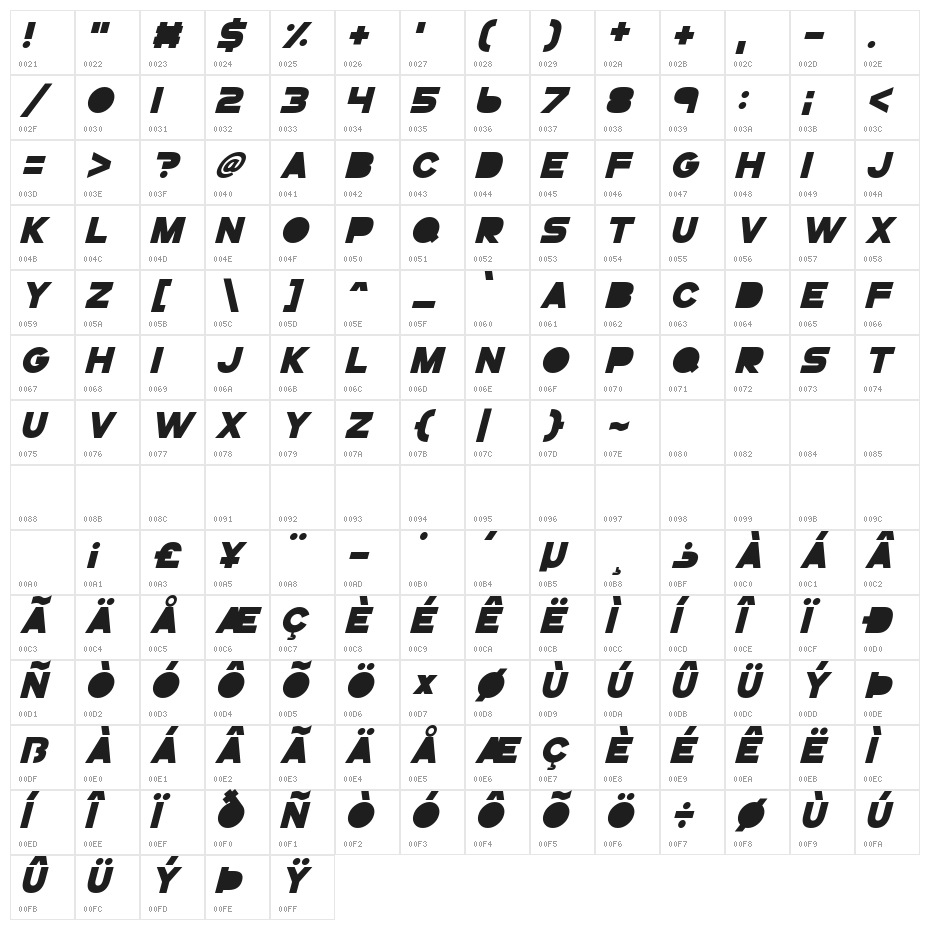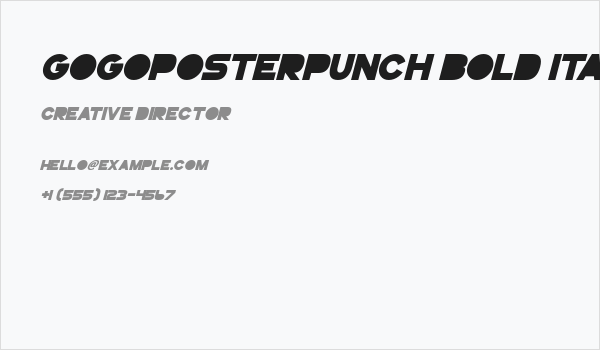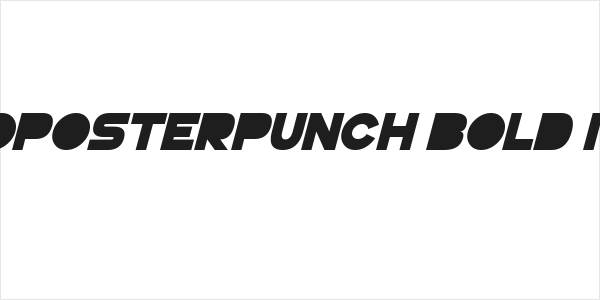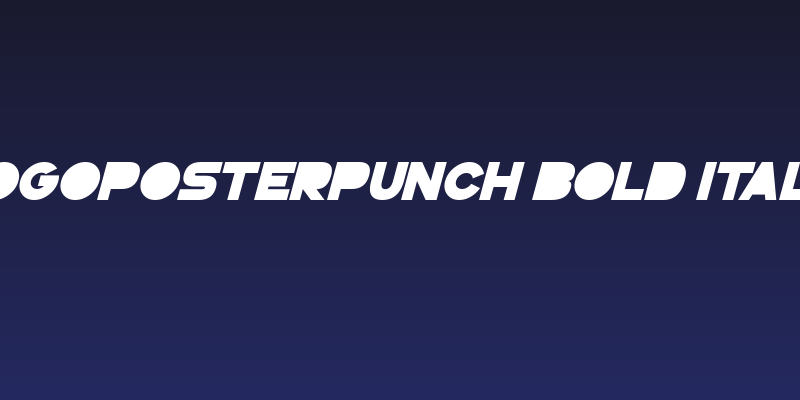
GoGoPosterPunch Bold Italic Font
GoGoPosterPunch Bold Italic Description
This bold and italic typeface features a dynamic and energetic style, characterized by its thick, slanted strokes and geometric shapes. The uppercase and lowercase letters maintain a consistent weight, providing a strong visual impact. The numbers and special characters follow the same bold and italicized design, ensuring uniformity across all elements. The font's design is modern and eye-catching, making it suitable for projects that require a bold statement. Its unique style is perfect for grabbing attention and conveying a sense of urgency or excitement.
Proposed ProjectsIdeal for posters, headlines, advertising, and branding projects that require a bold and modern look.